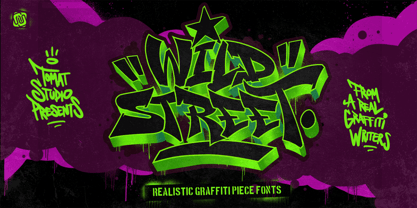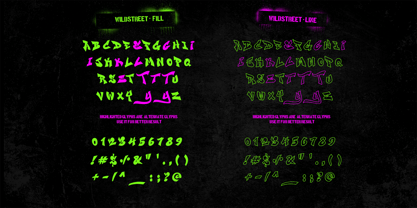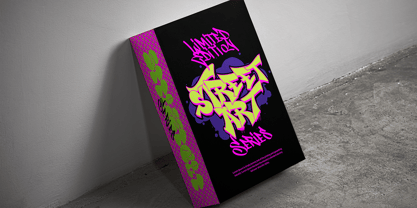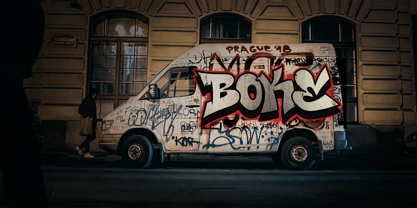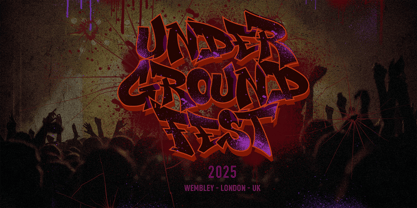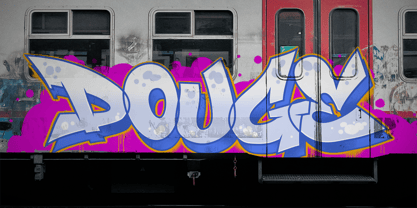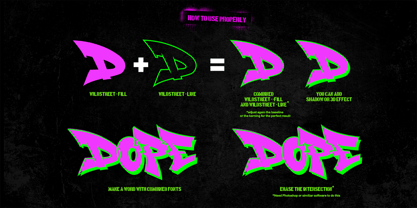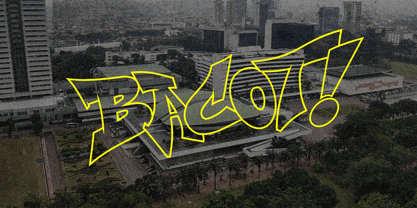
Wild Streets Graffiti
by Tomatstudio
The Wild Streets Graffiti Font Family was designed by Cipto Bagus Prakarso and published by Tomatstudio. Wild Streets Graffiti contains 2 styles and family package options.
Wildstreets Graffiti is a graffiti-style font inspired by the raw, energetic markings found on real urban walls. Designed by an authentic street artist with years of hands-on graffiti experience, this typeface captures the true spirit of street culture, bold, gritty, and undeniably real, giving your designs an edgy realism that stands out effortlessly. Despite its wild street aesthetic, "Wildstreets" is incredibly easy to use across various design projects. It’s an excellent choice for themes related to street art, hip-hop, urban grunge, or any creative work that needs a strong underground vibe. While the font is highly versatile, I still recommend adjusting kerning and baseline settings to perfectly match your personal style and visual goals. These two versions are designed to complement each other, giving you more flexibility and creative combinations to elevate your artwork.